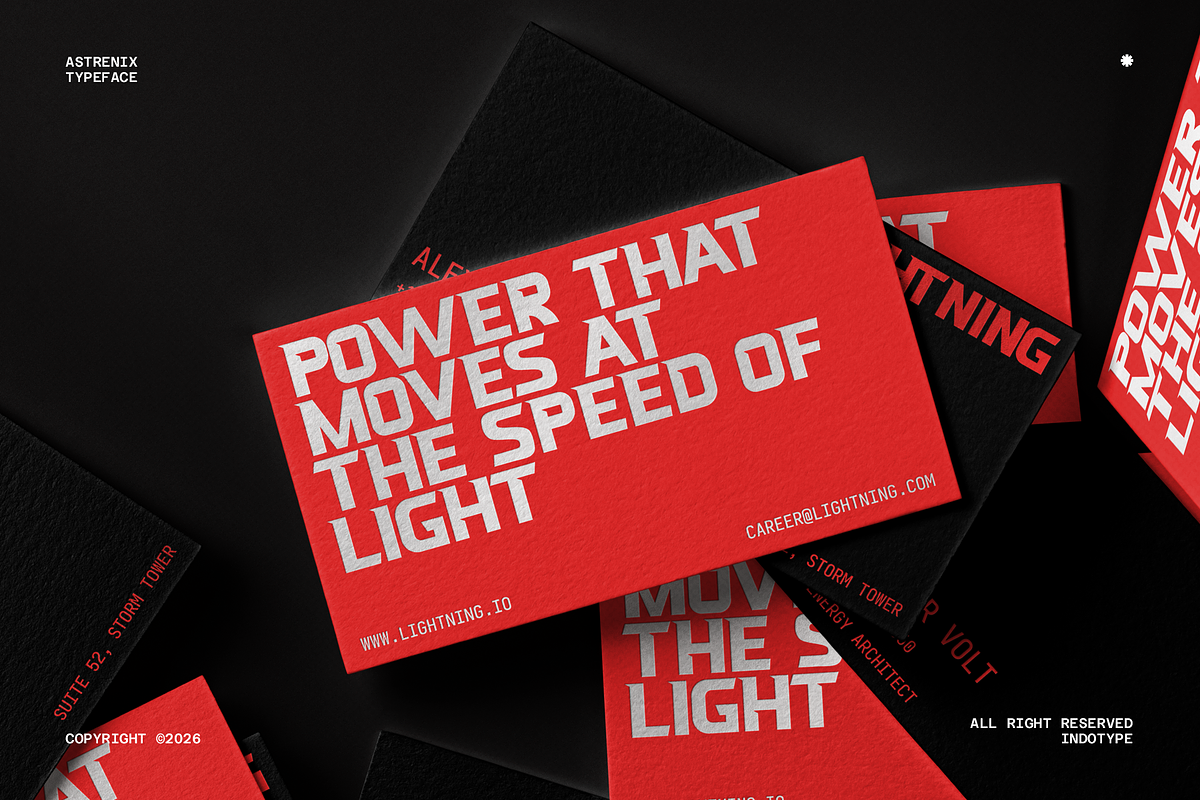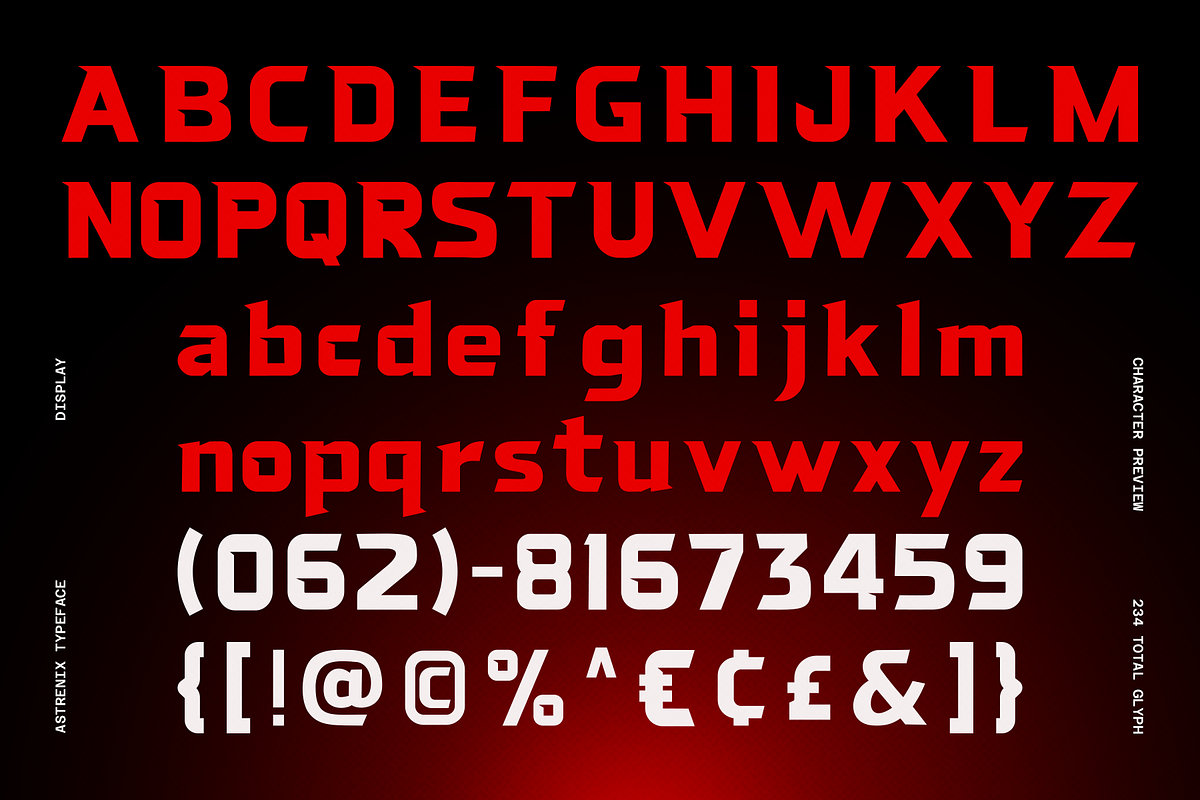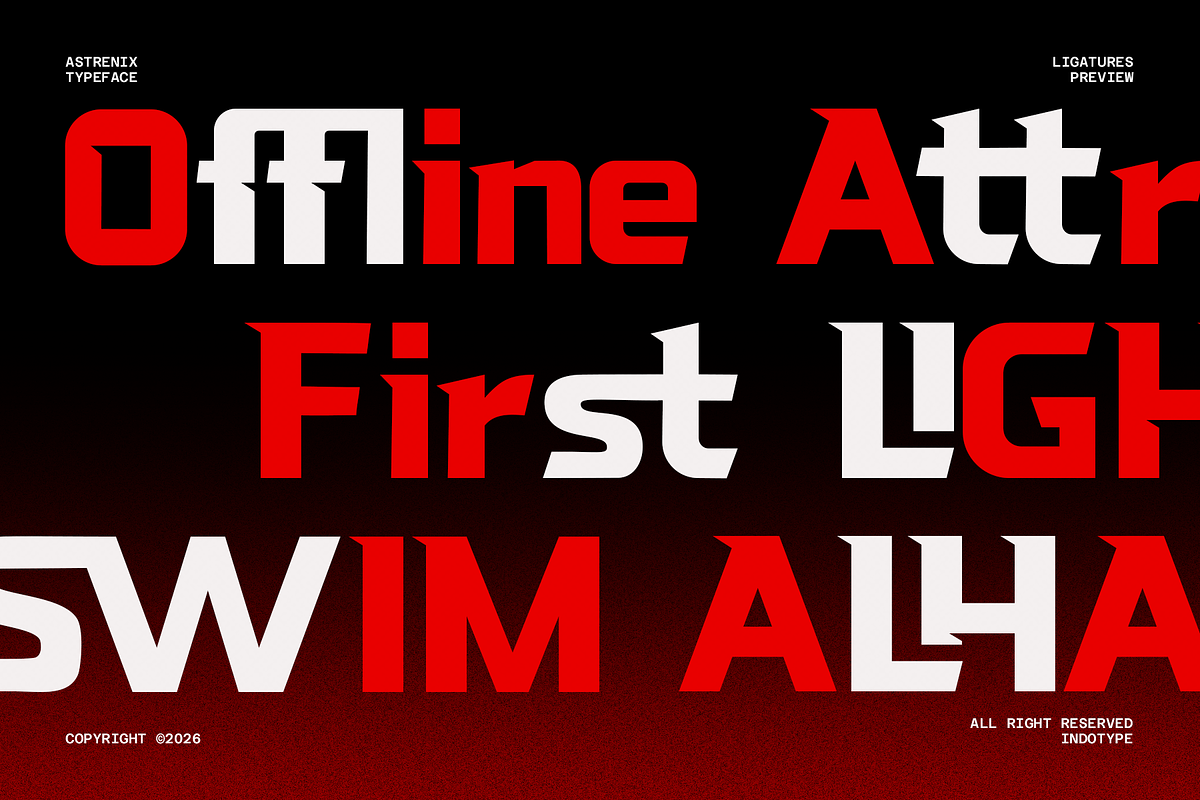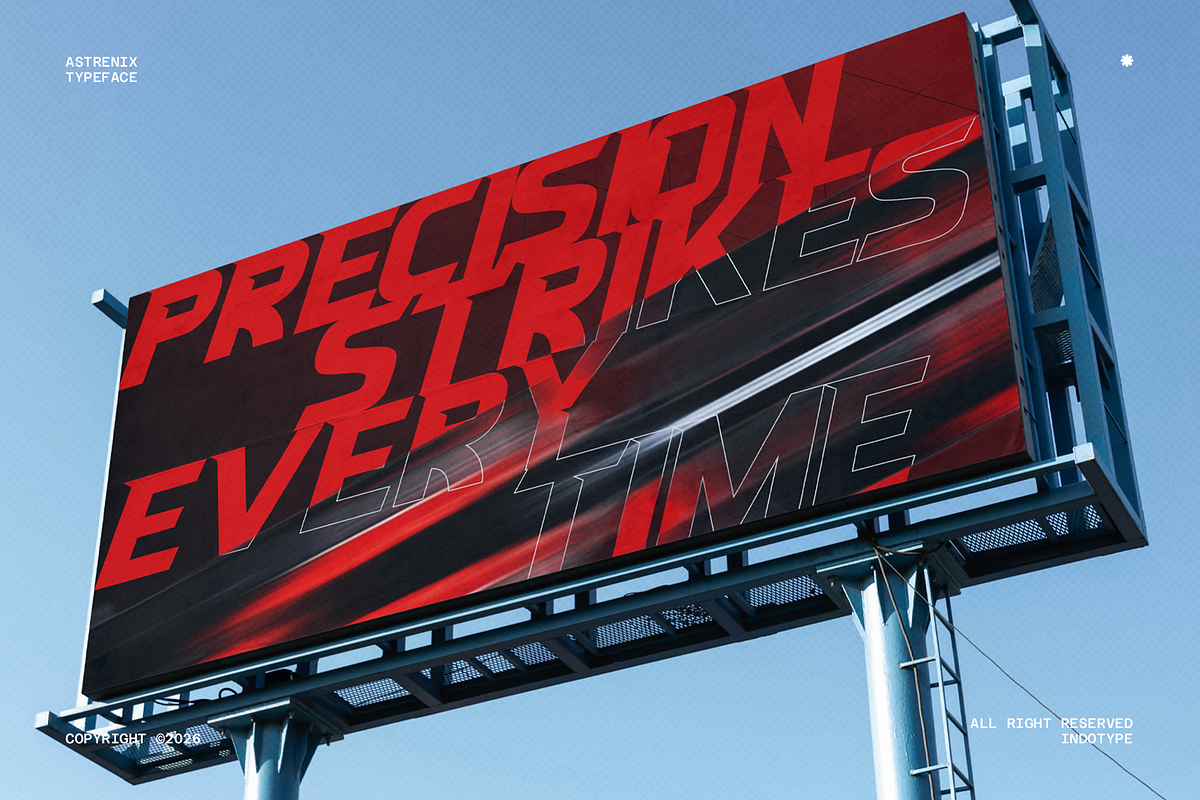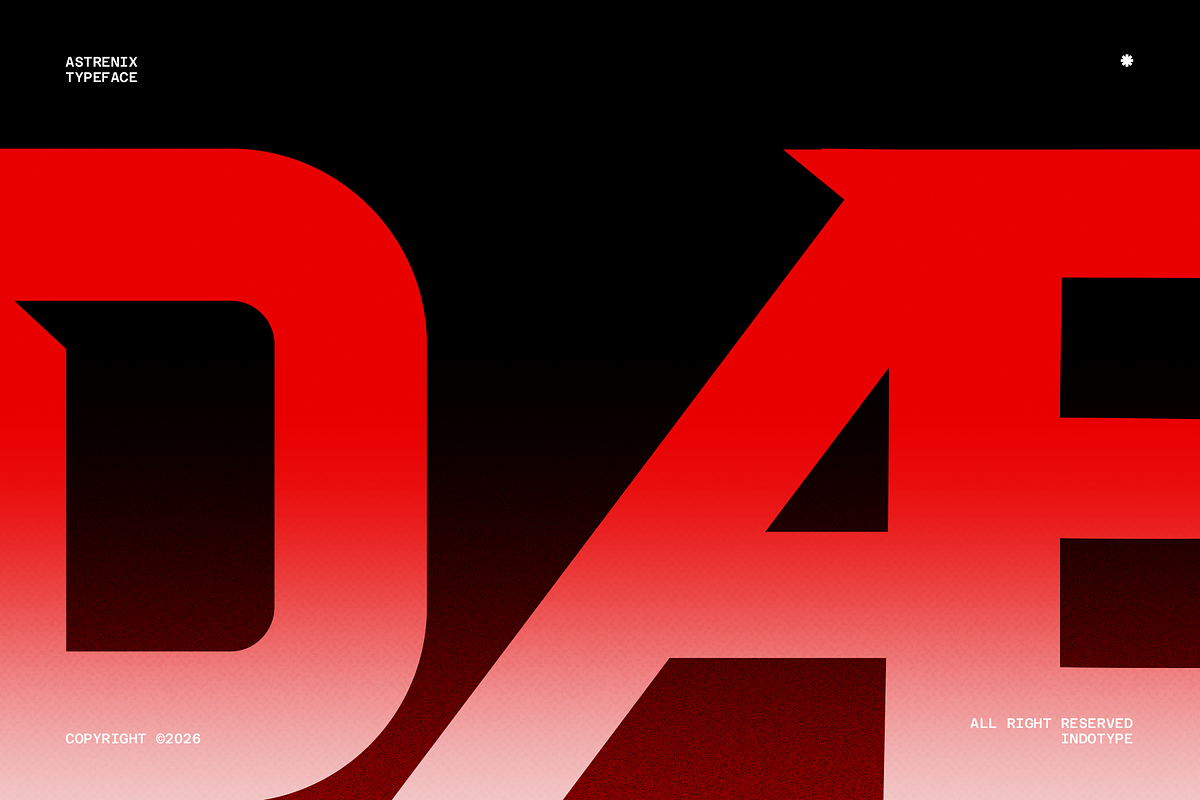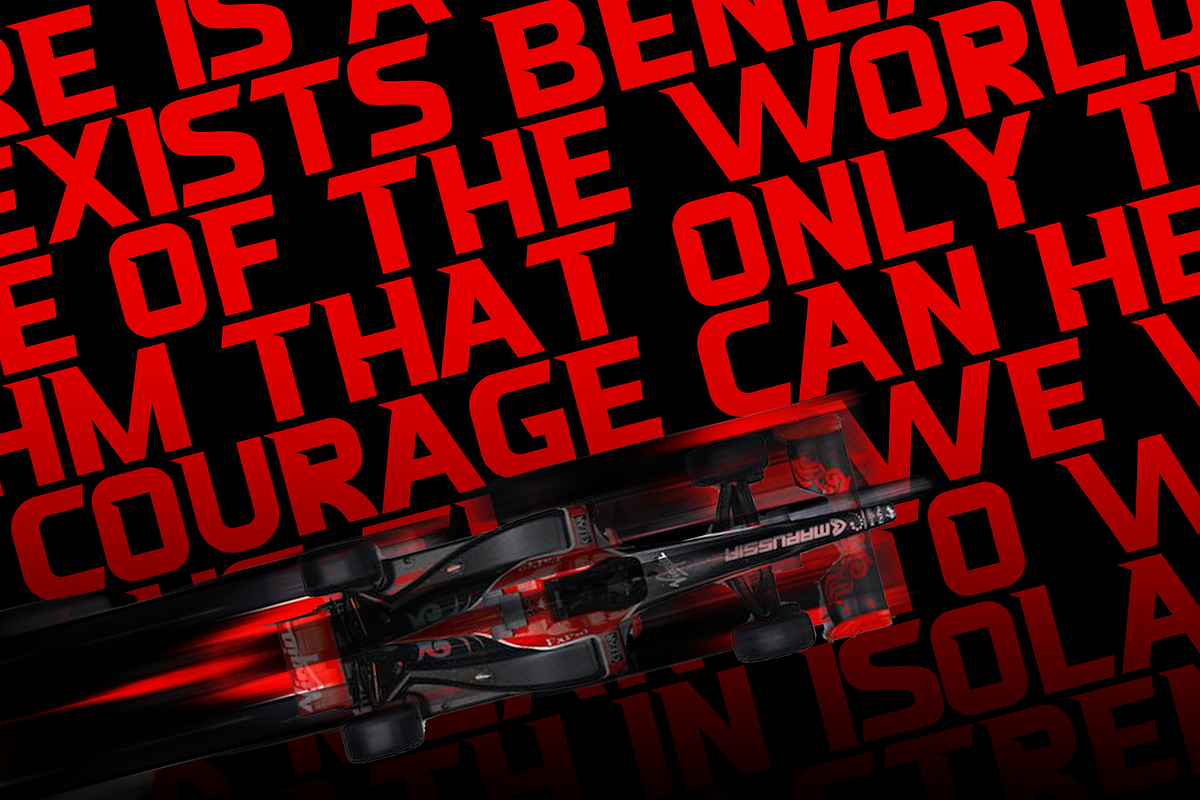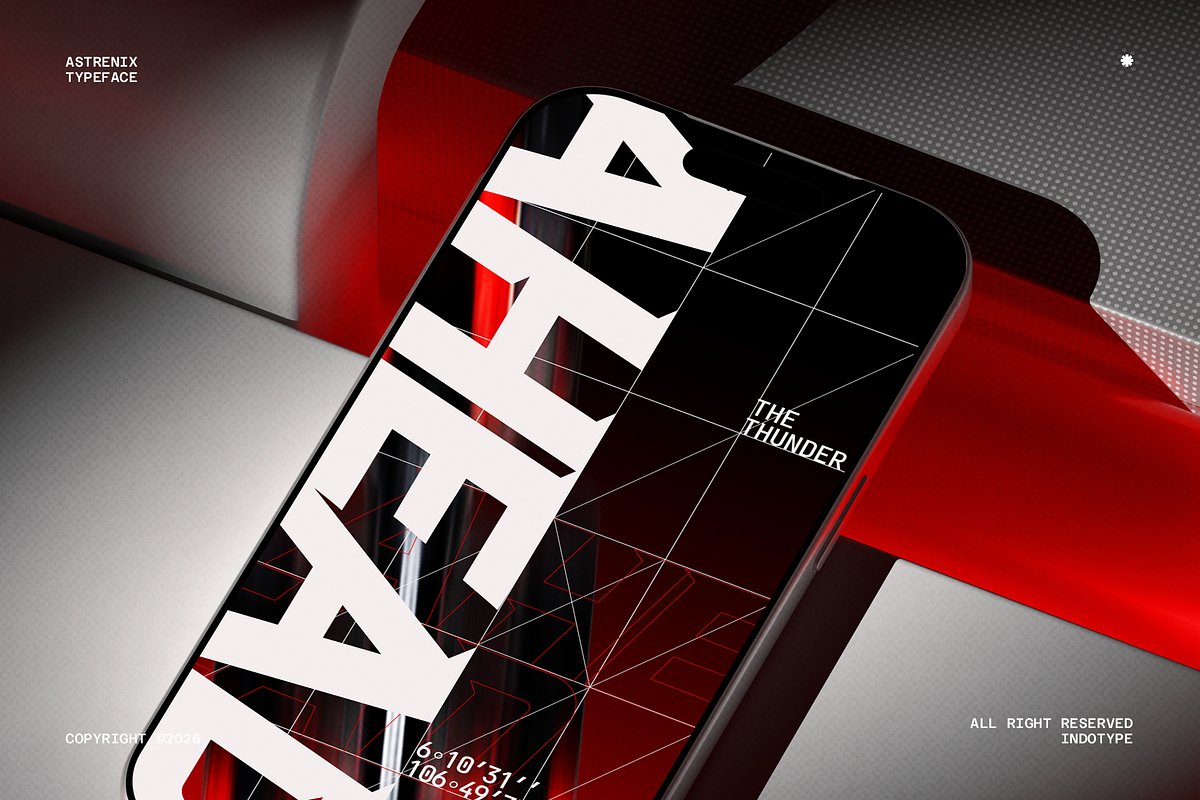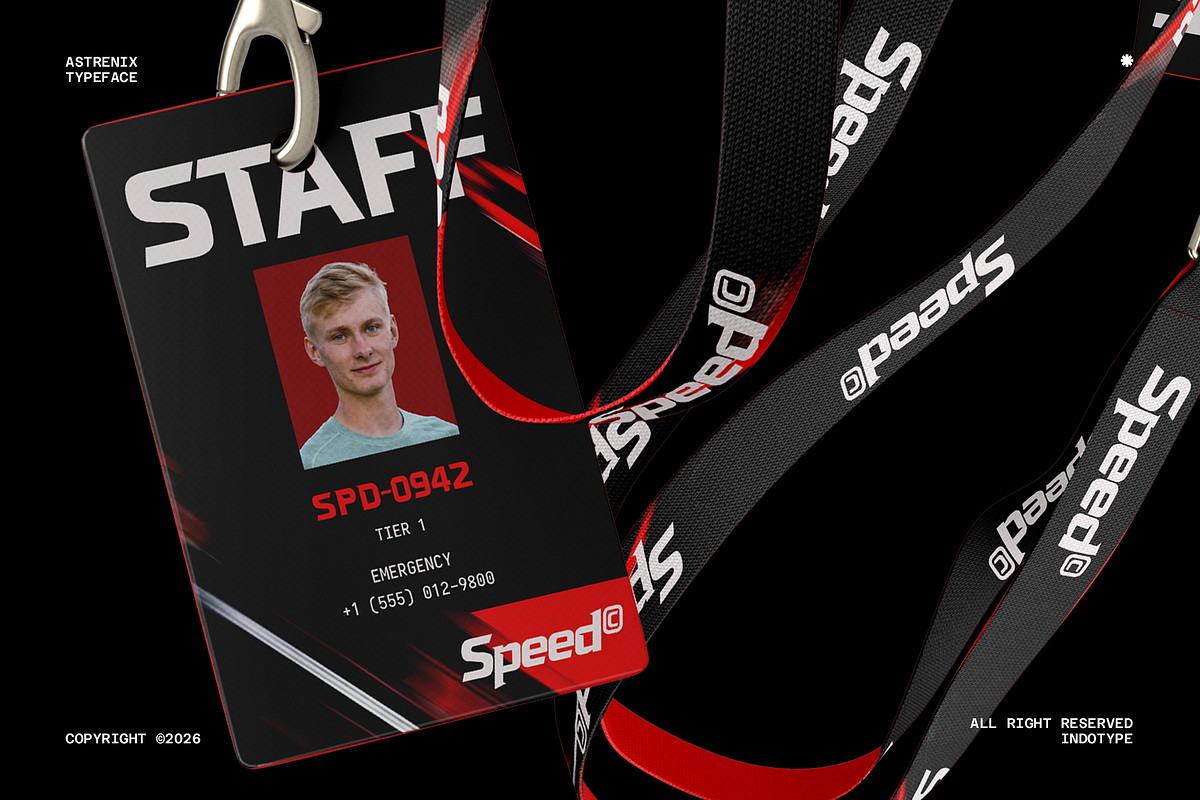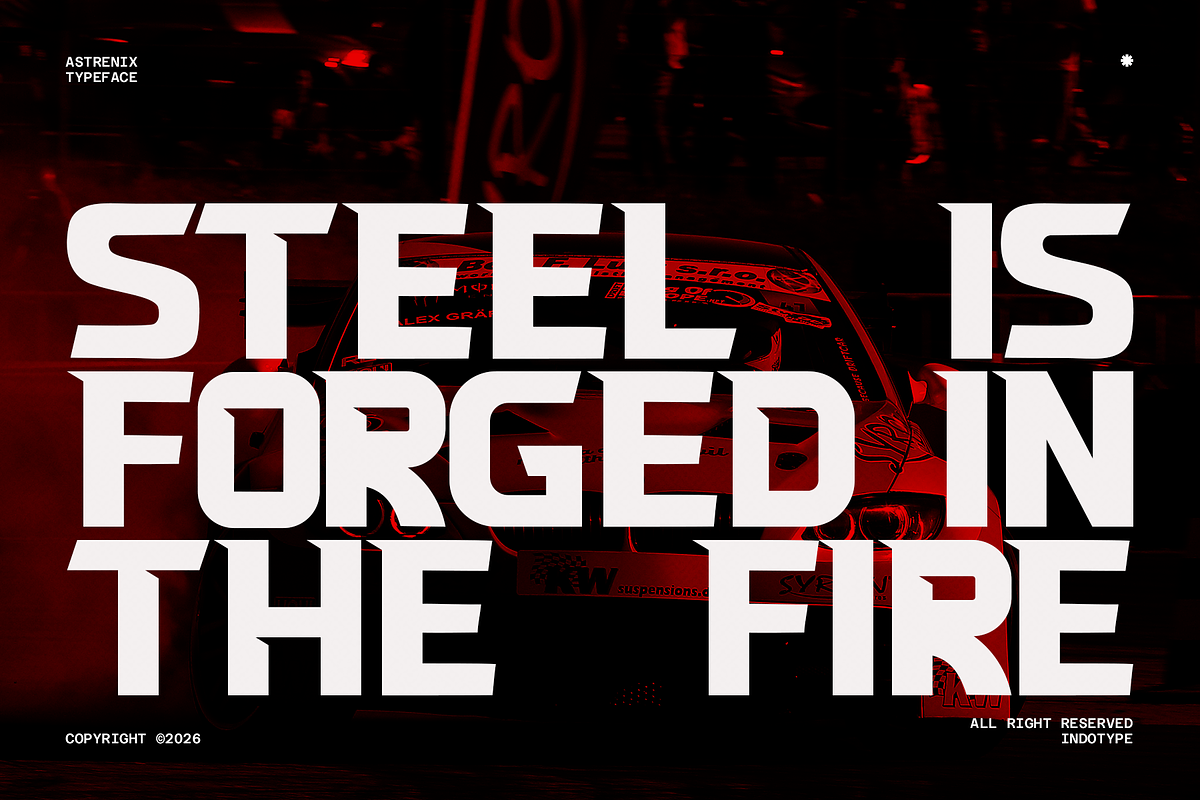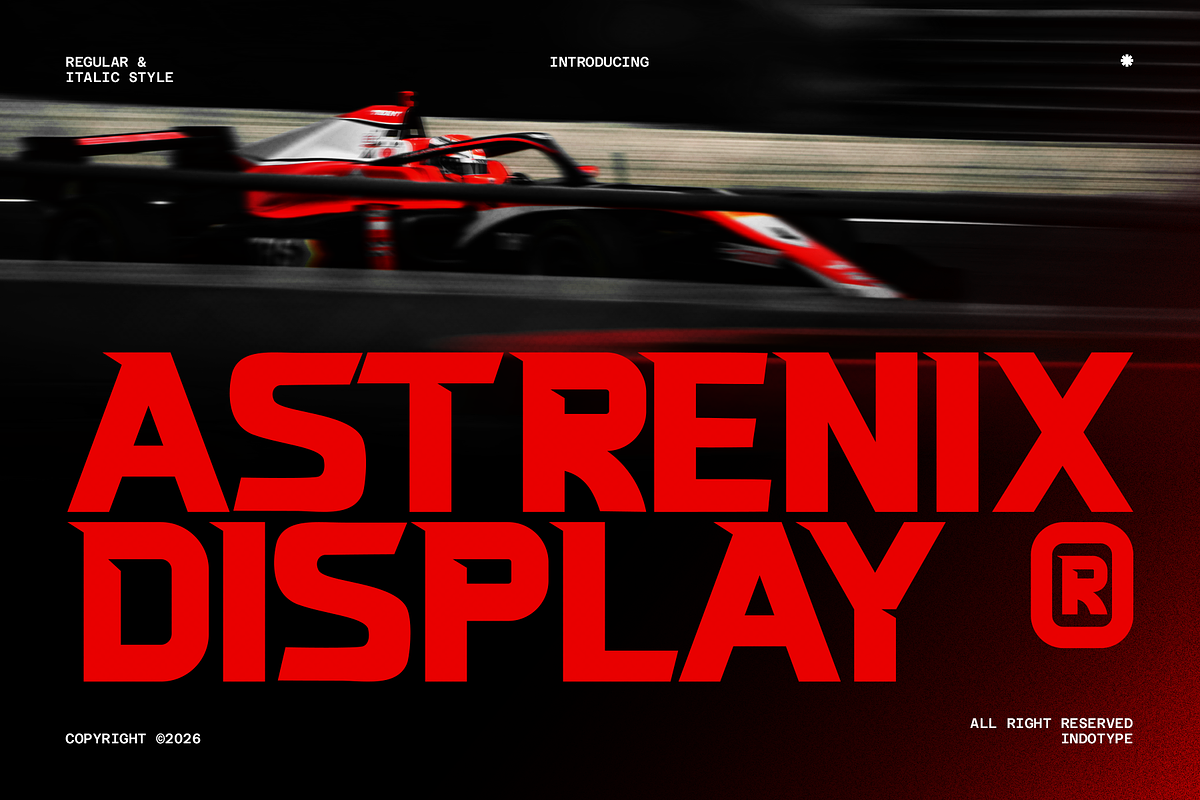
Astrenix - Futuristic Sport Tech
Astrenix Display is a high-velocity, futuristic typeface engineered for the intersection of elite sports and cutting-edge technology. Its design evokes speed, precision, and digital energy, with sharp angles, streamlined forms, and a dynamic structure that feels both aerodynamic and electrically charged. This font doesn’t just display text—it visualizes motion and innovation. Built for maximum impact, Astrenix Display is the ultimate choice for esports team branding, athletic performance wear, tech gadget marketing, energy drink labels, and any project that needs to communicate peak performance and a forward-thinking attitude. It’s the typographic fuel for brands that operate at the forefront of speed and style.
- Ideal for: Esports & Gaming Logos, Athletic Sportswear, Tech & Gadget Marketing, Energy Drink Branding, Racing & Motorsports, Futuristic Event Graphics.
- Classification: Display, Sans-Serif, Sport, Tech, Futuristic.
- Attributes: Fast, Sharp, Energetic, Futuristic, Aggressive, Modern, Digital.